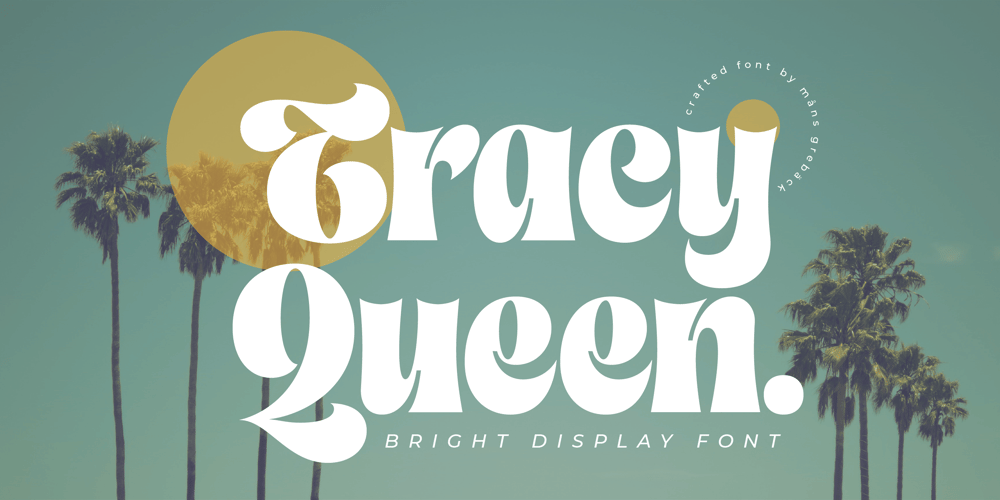
Tracy Queen Font Family was designed by Måns Grebäck and published by Mans Greback. Tracy Queen contains 4 styles and family package options. Tracy Queen is a velvety display typeface. Drawn and created between 2020 to 2022, this modern lettering has a soft personality while maintaining a strong expression. Tracy Queen gives any project a flowing appearance with its wavy shapes and smooth edges.The Tracy Queen family consist of 4 fonts: Regular, Alt, Italic and Alt ItalicThe font is built with advanced OpenType functionality and has a guaranteed top-notch quality, containing stylistic and contextual alternates, ligatures and more features; all to give you full control and customizability. It has extensive lingual support, covering all Latin-based languages, from Northern Europe to South Africa, from America to South-East Asia. It contains all characters and symbols you’ll ever need, including all punctuation and numbers.